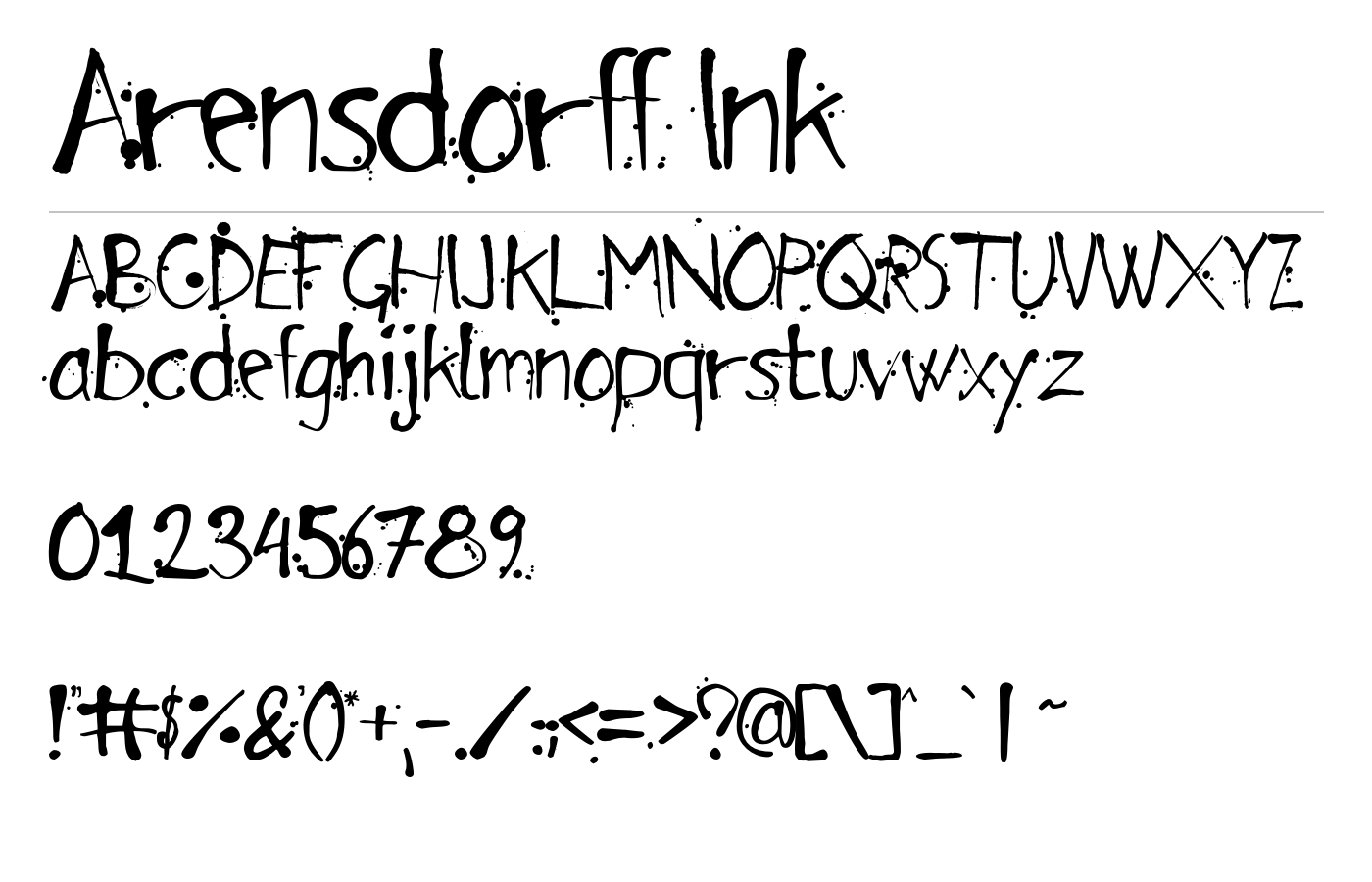
Arensdorff Ink is a playful, hand-drawn sans serif font with an organic, ink-splattered look that adds character and a casual, artistic vibe. Its irregular stroke widths and spontaneous ink blot details make it perfect for creative projects, informal branding, and expressive headlines where a fun, unique personality is desired. This font works especially well for designs that want to feel handcrafted and lively rather than polished or formal.
Arensdorff Ink Font
About Arensdorff Ink Font
| Font family | Arensdorff Ink Font |
| Designer | Lene Martin Arensdorff Kristiansen |